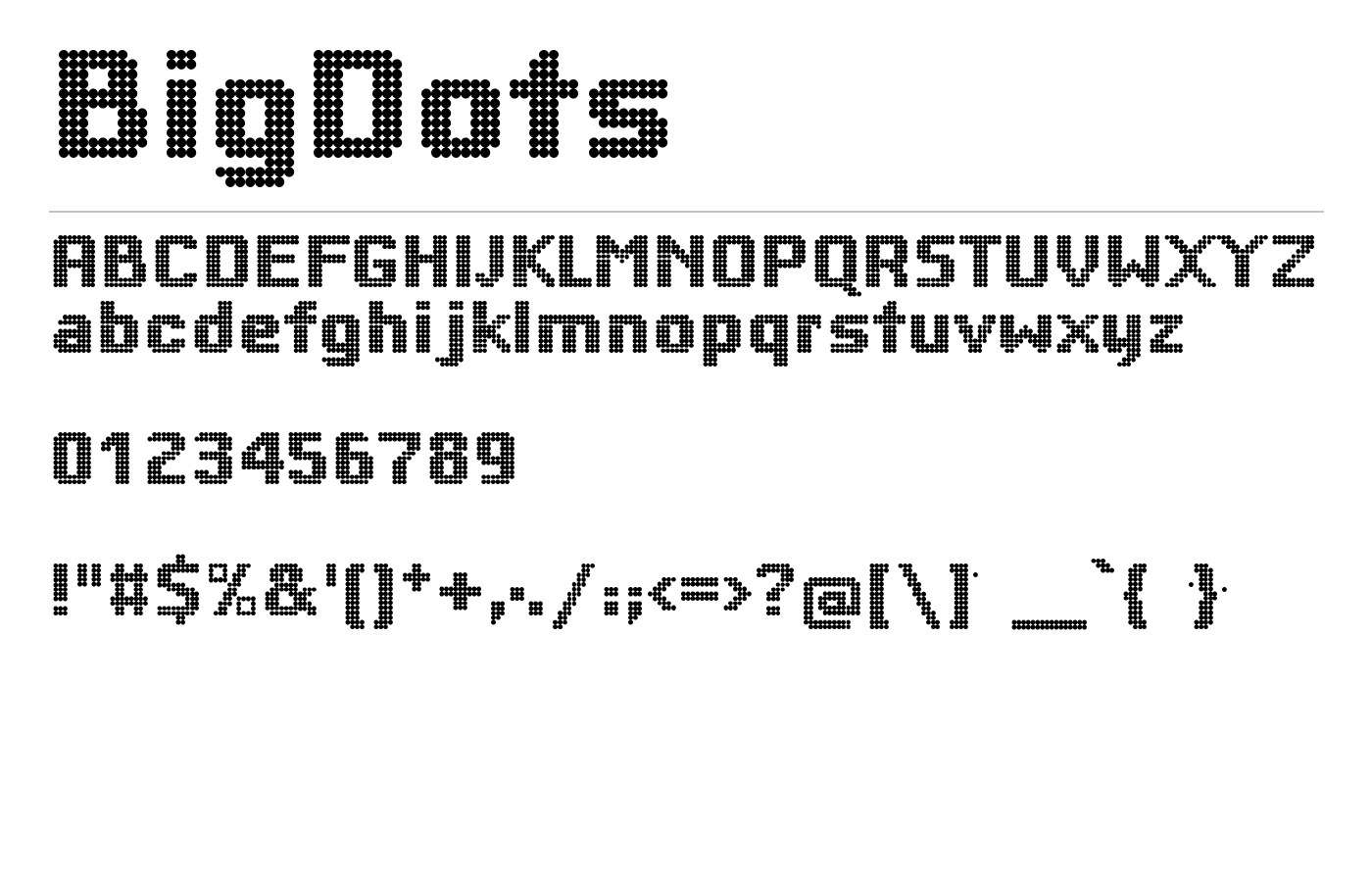
BigDots is a unique sans serif font characterized by its playful pixelated appearance formed entirely from bold dots. With a monospaced, geometric structure and consistent medium weight, it evokes a retro digital or arcade feel, making it ideal for tech-inspired, gaming, or youth-oriented designs. Its quirky style works best in headlines, logos, and posters where a fun, modern, and distinctive vibe is desired.
BigDots Font
About BigDots Font